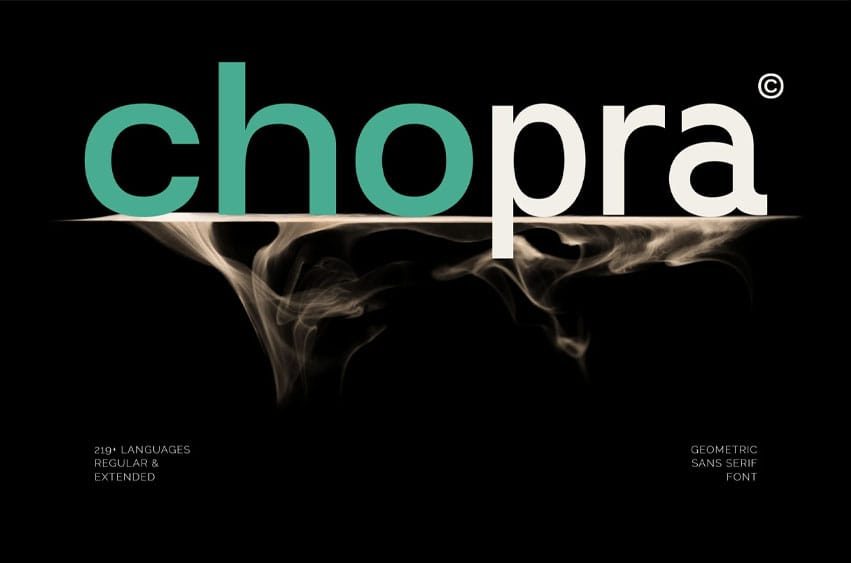
IB Chopra Font is a sleek, modern Geometric Sans Serif font designed for creators who crave precision and elegance. With its clean lines and perfectly balanced characters, Chopra is ideal for branding, logos, websites, packaging, and editorial design. It supports 219+ languages and comes in both Regular and Extended styles, making it highly versatile for global reach.
What makes Chopra stand out is its minimalist aesthetic fused with subtle sophistication—think timeless yet trendy. Whether you’re crafting a fashion label, launching a tech startup, or curating a polished online presence, Chopra gives your project the modern edge it deserves.